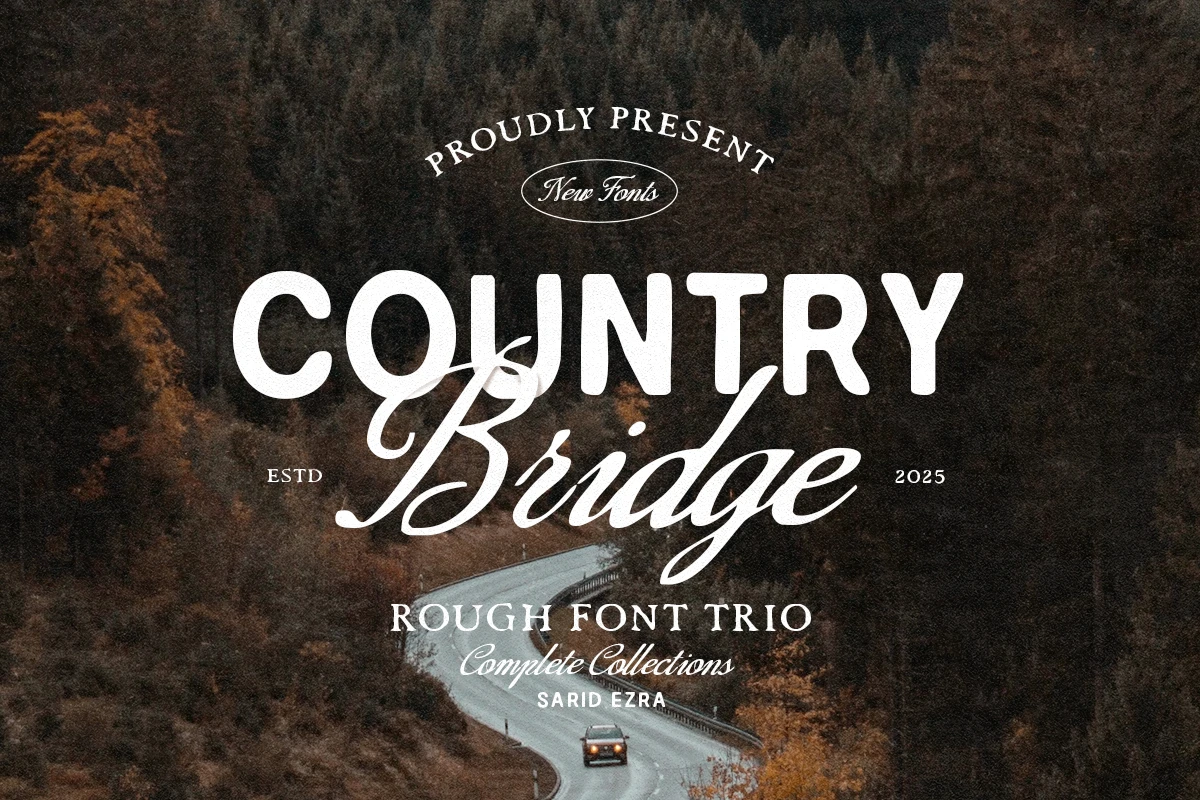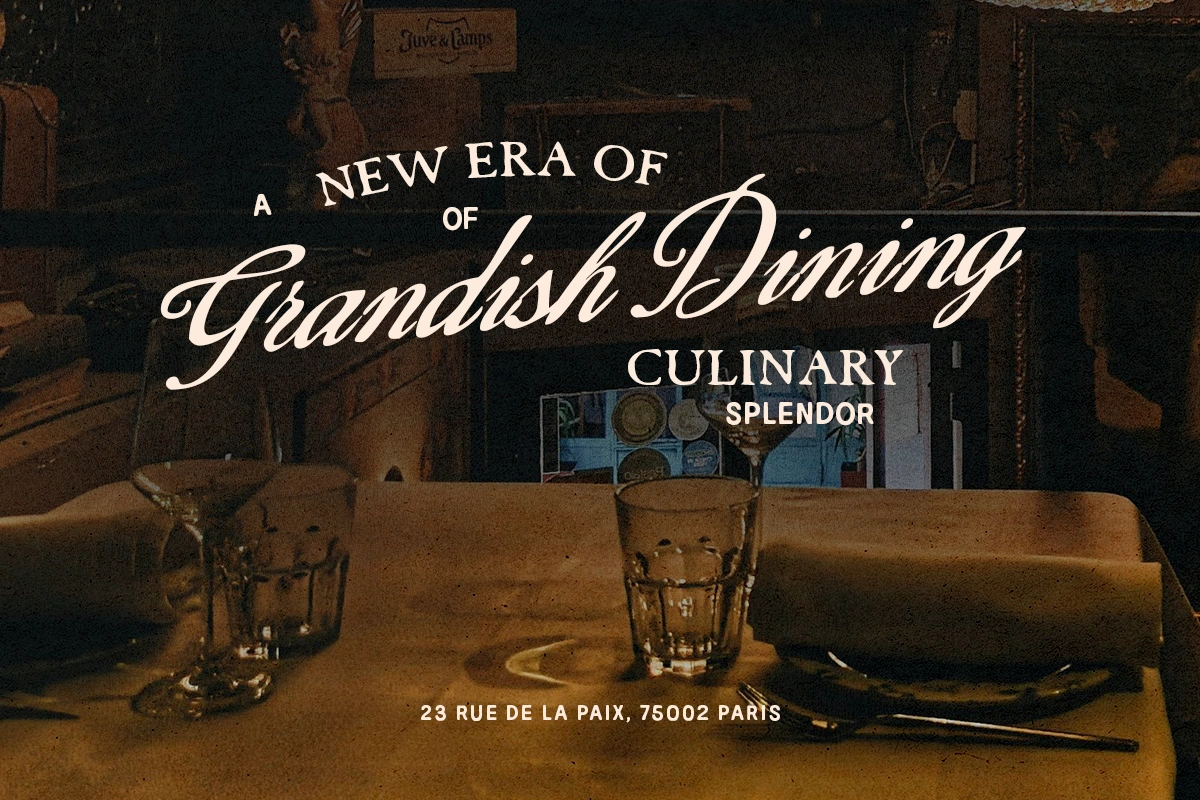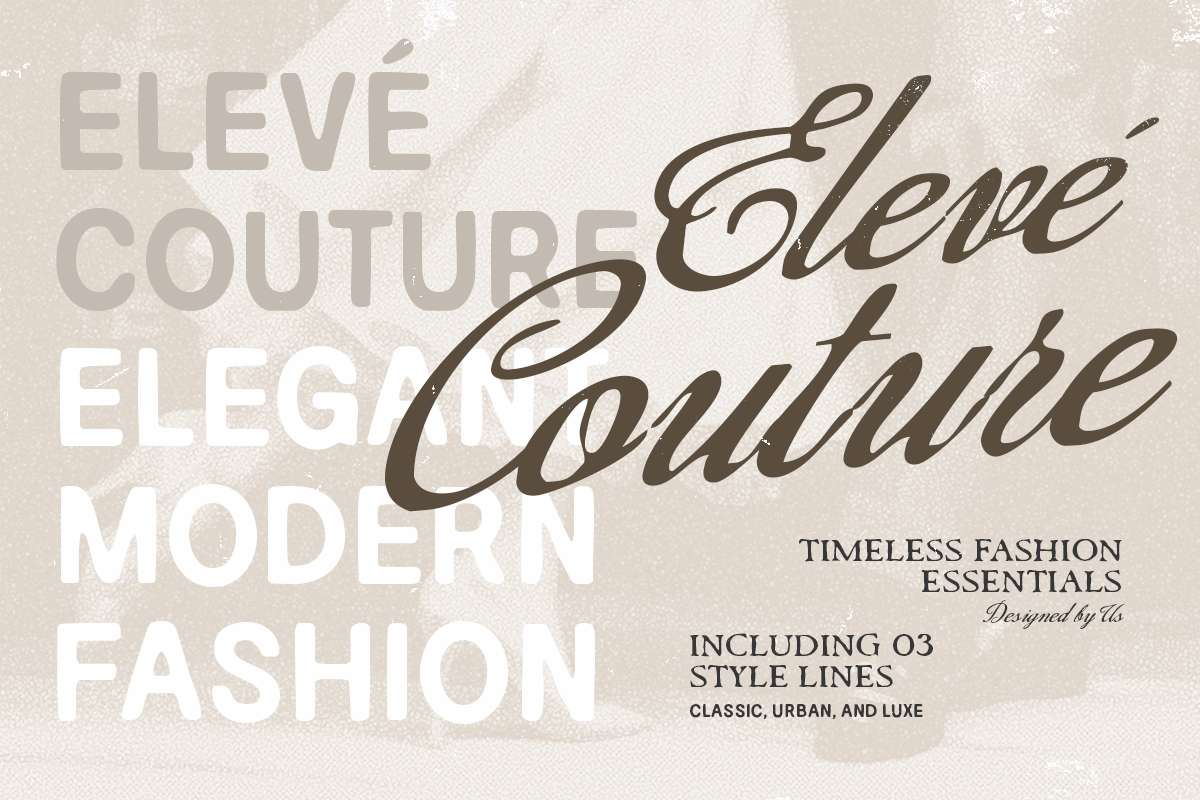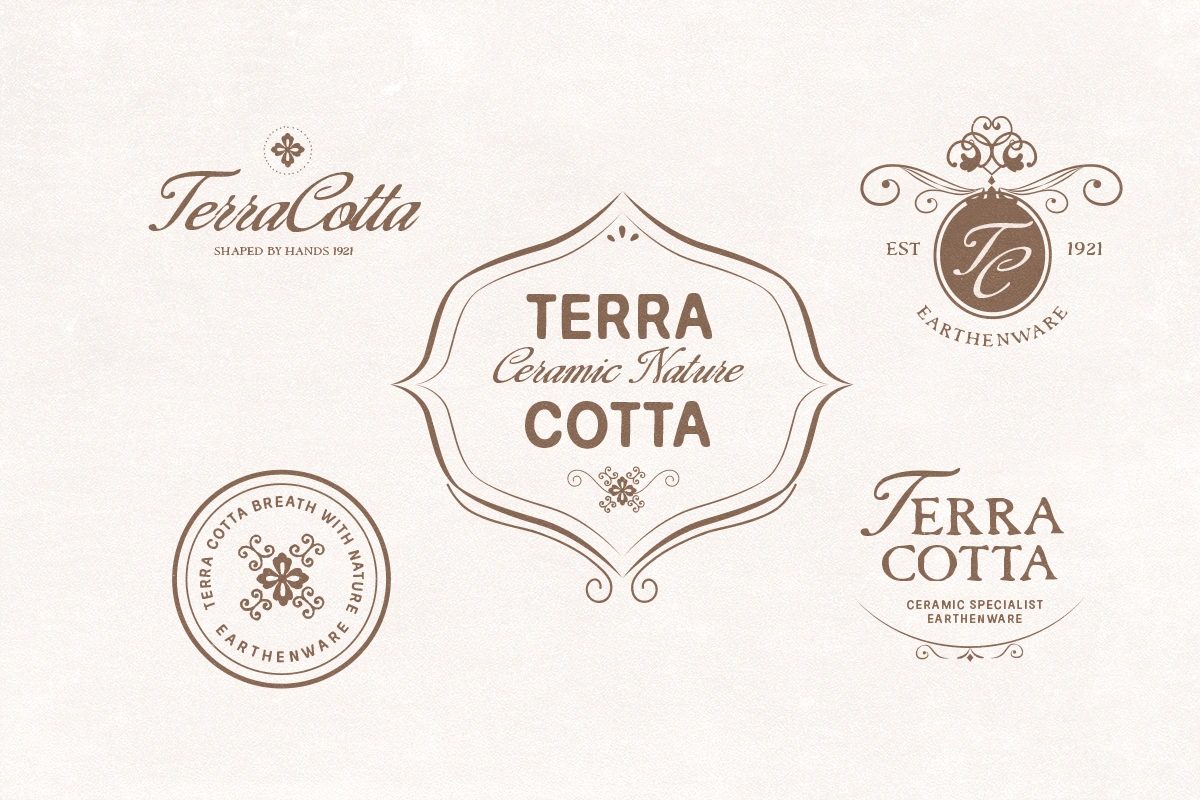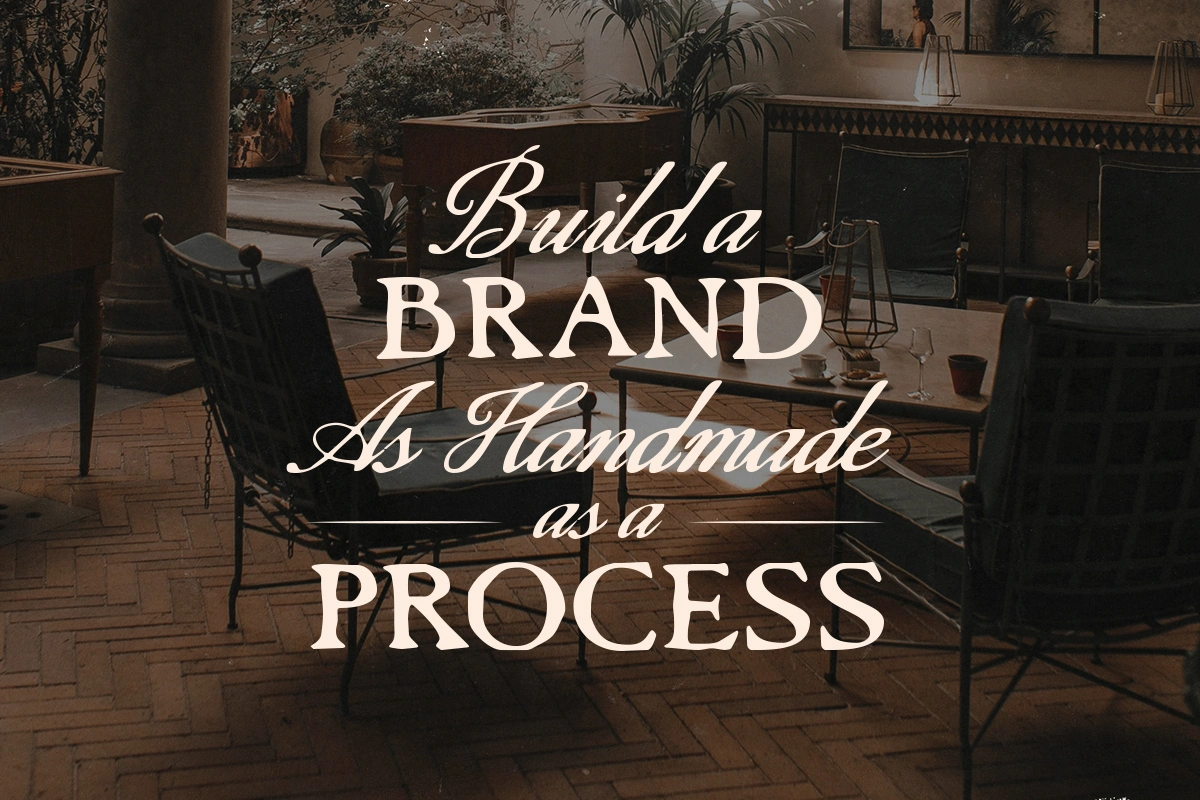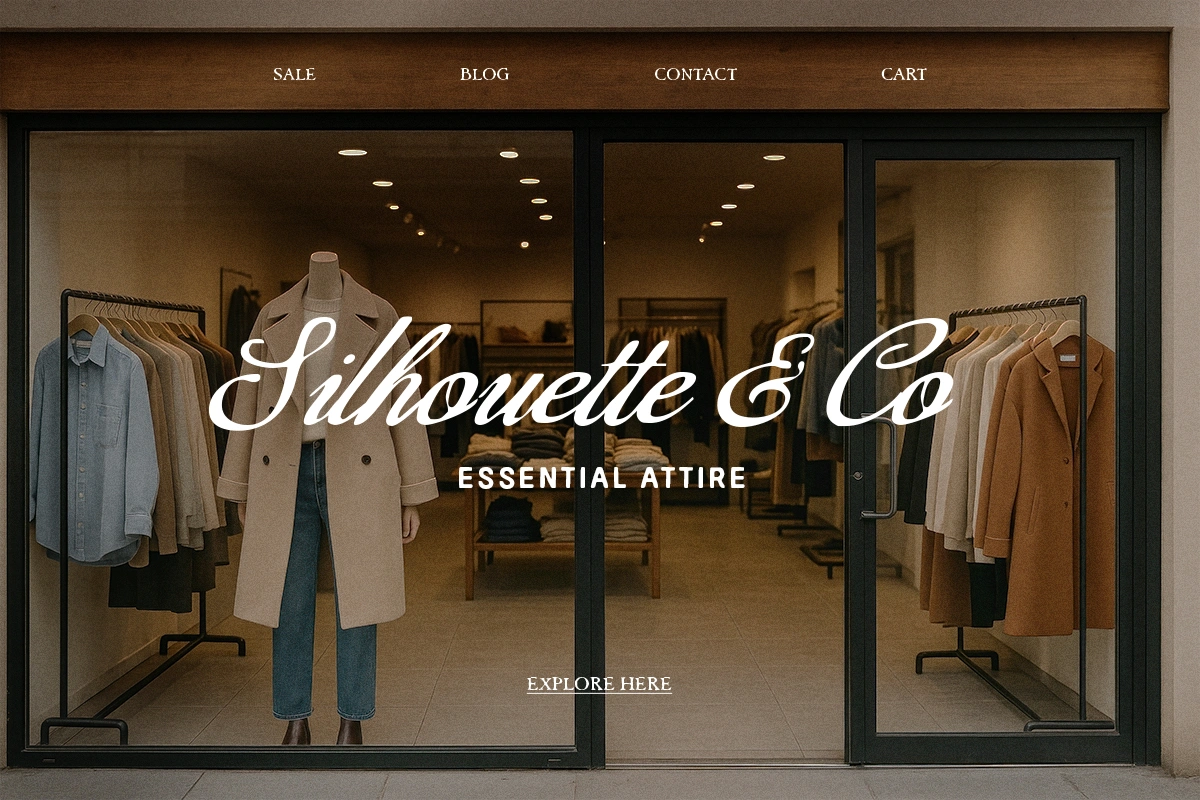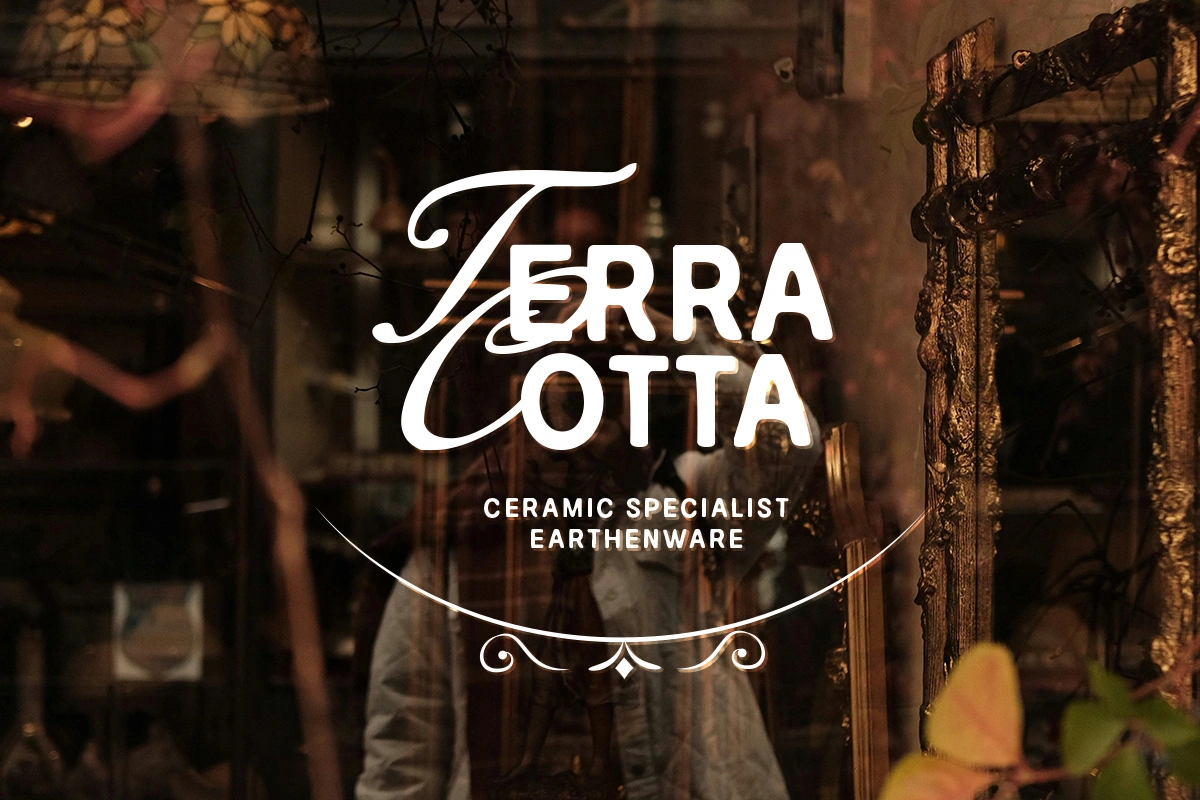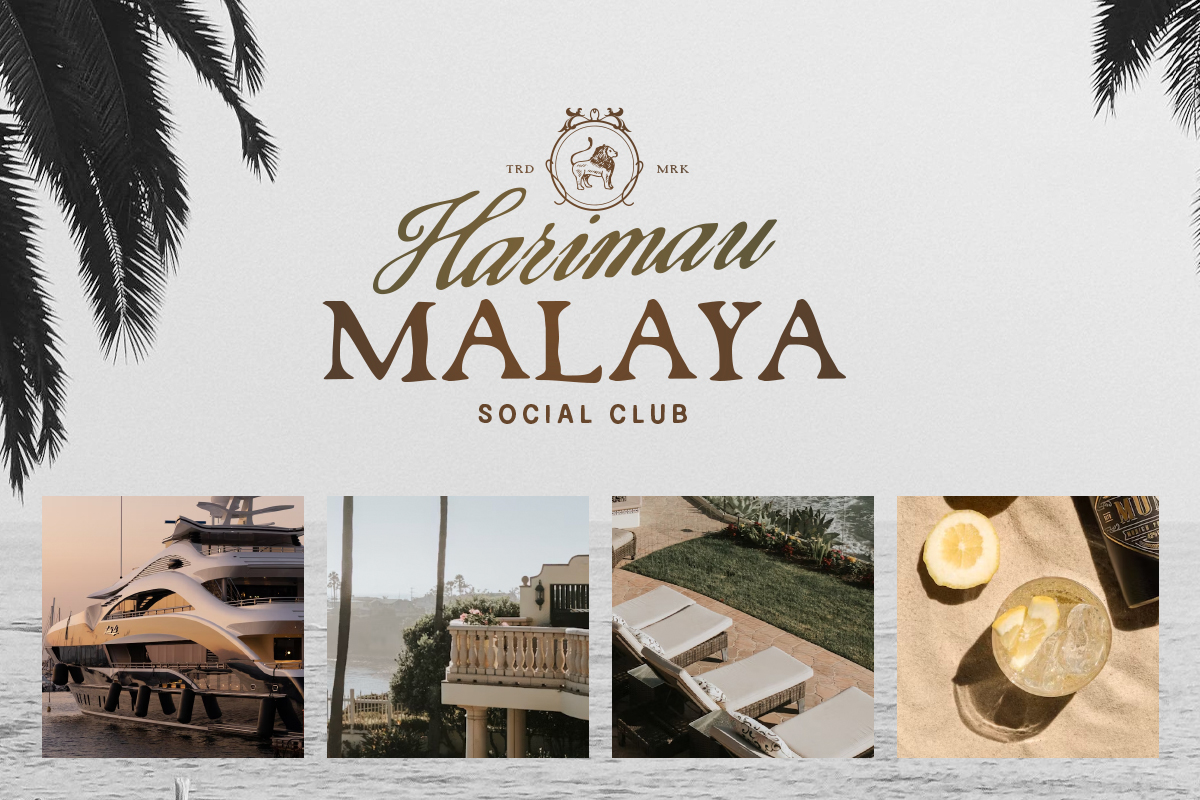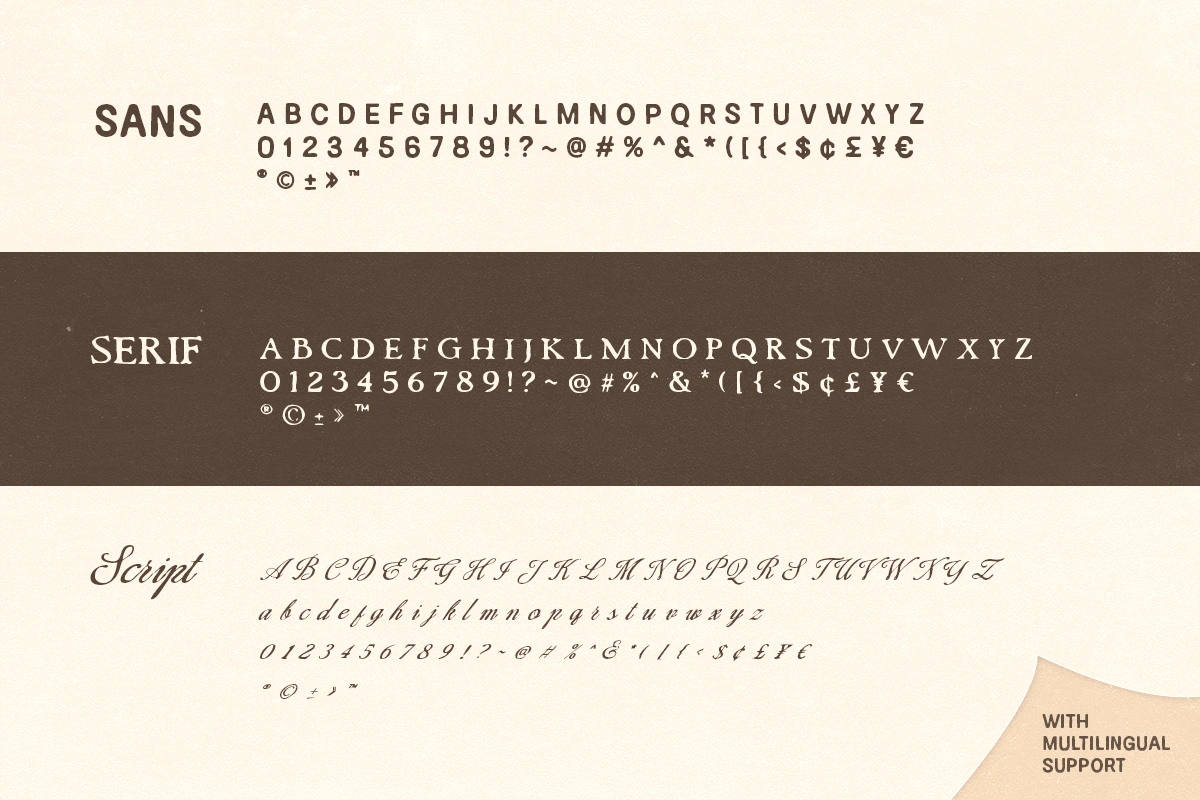
Country Bridge - Rough Font Trio
Country Bridge is a versatile font collection that brings together three styles fonts that compliment each other. This trio supports multilingual characters, numbers, and symbols, making it practical as well as beautiful. Perfect for logotypes, branding, wedding invitations, and quotes, Country Bridge saves you the trouble of font pairing — the three styles are designed to work seamlessly together.